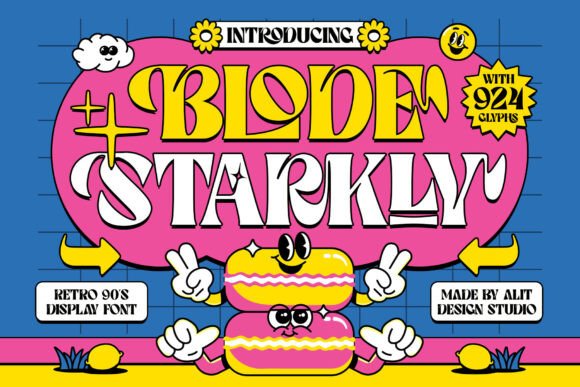
Blode Starkly Font: The Ultimate 90s Retro Psychedelic Display Font
Step into a time machine and bring the vibrant, groovy energy of the 90s back to the future! Blode Starkly is not just a font; it’s a total design experience. Inspired by the playful, trippy, and expressive “Rubber Hose” and “Psychedelic” art styles, this typeface is designed to make your projects pop with personality and a touch of vintage nostalgia.
A Font that Embodies the Retro-Futuristic Hippie and 90s Psychedelic Aesthetic
This is a fantastic font—it perfectly captures that trending “Retro-Futuristic Hippie” and “90s Psychedelic” aesthetic. With its bold, curvy forms and eccentric proportions, Blode Starkly demands attention and adds a unique touch to any design project. Whether you are designing a high-end streetwear brand, a funky cafe menu, or a modern social media campaign, this font provides a unique balance between retro kitsch and modern sophistication.
One of the standout features of Blode Starkly is its versatility. This font is perfect for a wide range of design projects, from branding and advertising to packaging and digital media. Its bold and playful personality makes it ideal for designers who want to add a touch of fun and whimsy to their work. Whether you’re creating a logo, a poster, or a social media graphic, Blode Starkly is sure to make your design stand out from the crowd.
A Massive Glyph Count for Endless Creative Possibilities
Blode Starkly features a massive glyph count, giving you endless creative possibilities. With a wide range of characters, symbols, and ligatures to choose from, you can create unique and complex designs that showcase your creativity and style. Whether you want to add a touch of elegance or a dash of playfulness to your design, Blode Starkly has got you covered.
Fun Personality that Adds a Touch of Whimsy to Your Designs
Blode Starkly is not just a font; it’s a design experience. Its fun personality and playful vibe add a touch of whimsy to any design project. Whether you’re creating a design for a fashion brand, a food truck, or a music festival, this font is sure to bring a smile to your audience’s face. With Blode Starkly, you can add a touch of personality to your designs and make them truly unforgettable.
Blode Starkly is perfect for designers and crafters who want to add a touch of retro flair to their work. Whether you’re a professional designer or a DIY enthusiast, this font is easy to use and versatile enough to fit a wide range of design projects. With its bold and playful personality, Blode Starkly is sure to inspire your creativity and take your designs to the next level.
Why Choose Blode Starkly?
- Unique and eye-catching design: Blode Starkly’s bold, curvy forms and eccentric proportions make it a standout font that demands attention.
- Versatility: This font is perfect for a wide range of design projects, from branding and advertising to packaging and digital media.
- Massive glyph count: With a wide range of characters, symbols, and ligatures to choose from, you can create unique and complex designs that showcase your creativity and style.
- Fun personality: Blode Starkly adds a touch of whimsy and playfulness to any design project, making it perfect for designers who want to add a touch of personality to their work.
Get Ready to Take Your Designs to the Next Level
If you’re looking for a font that embodies the retro-futuristic hippie and 90s psychedelic aesthetic, look no further than Blode Starkly. With its unique and eye-catching design, versatility, massive glyph count, and fun personality, this font is sure to take your designs to the next level. Whether you’re a professional designer or a DIY enthusiast, Blode Starkly is the perfect choice for anyone who wants to add a touch of retro flair to their work.